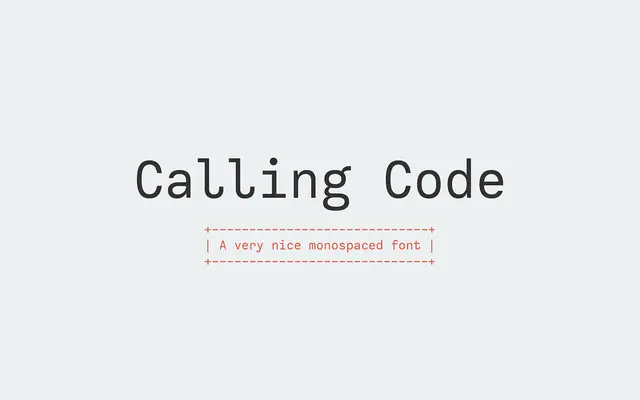
Calling Code
A slightly condensed monospaced font with playful curly tails, designed for coding and tabular layouts across four styles.
Built for coding and data display, it offers a slightly condensed width to make better use of screen real estate without sacrificing readability. The four styles — Regular, Italic, Bold and Bold Italic — cover the basics expected of a coding font, while curly tail details give it a modest personality above the generic. Available in both OpenType and TrueType formats, with a free trial of the Regular style via DaFont.
Explicitly designed as a monospaced typeface for coding and tabular data, with a slightly condensed width and playful details such as curly tails distinguishing it from purely utilitarian coding fonts.